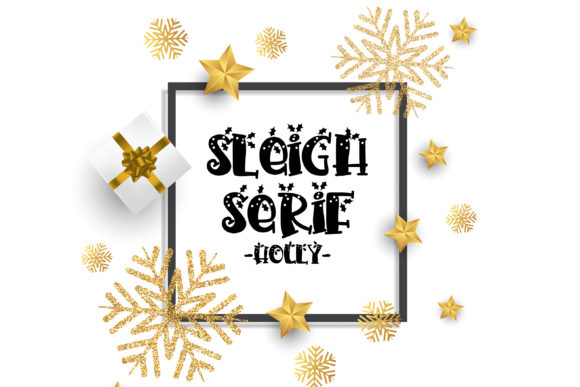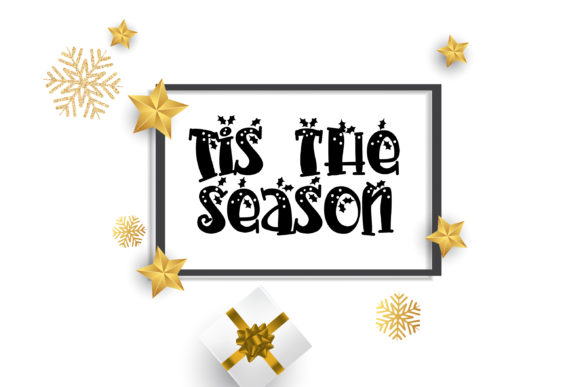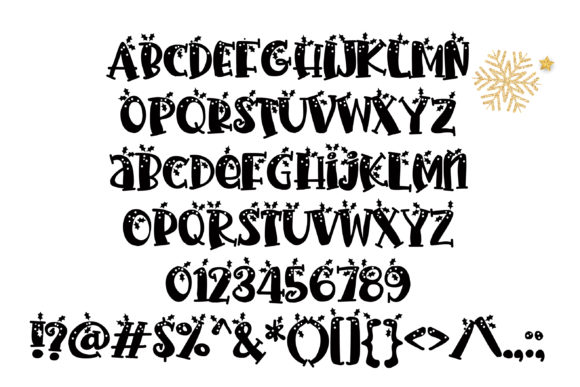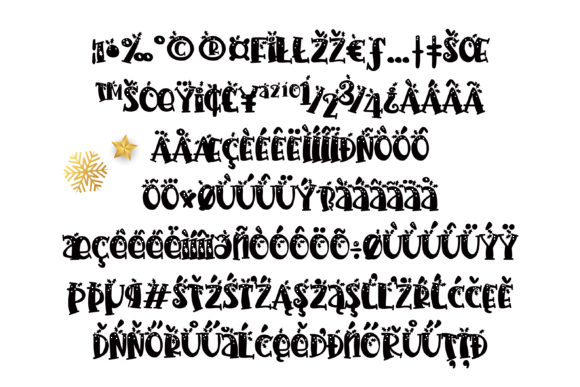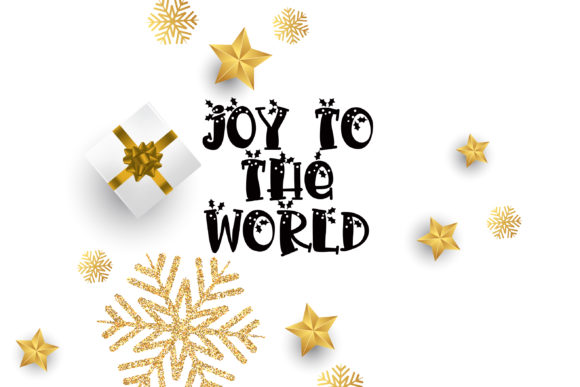
HomeScript FontsPN Sleigh Serif Holly Font Script Fonts PN Sleigh Serif Holly Font FacebookXPinterestWhatsApp PN Sleigh Serif Holly Font Poster 2 PN Sleigh Serif Holly Font Poster 3 PN Sleigh Serif Holly Font Poster 4 PN Sleigh Serif Holly Font Poster 5 About PN Sleigh Serif Holly Font This hand-crafted serif font is sporting holly throughout. DOWNLOAD ON CREATIVE FABRICAThis font is sold and delivered by Creative Fabrica. Font Canyon may earn a commission if you buy through this link. People also explored Camedyan Font Bentley Font Handmade Font Butterfly Font Zamilla Font Maletha Hidrocloroquin Font Blackletter Font Rove Font 288 0 TagsPN Sleigh Serif Holly Font Previous articleThe Spirit FontNext articlePN Christmas Town Font LEAVE A REPLY Cancel reply Comment: Please enter your comment! Name:* Please enter your name here Email:* You have entered an incorrect email address! Please enter your email address here Website: Save my name, email, and website in this browser for the next time I comment. Personal Use Free Expaing Personal Use Free Read more about this font Cute Messy Personal Use Free Read more about this font Dimensional Look71 Personal Use Free Read more about this font Rosebirth Personal Use Free Read more about this font BLOG Elegant Wedding Invitation Fonts – Handwritten & Script Fonts Elegant Wedding Invitation Fonts Your wedding day is one of the most important moments of your life, and every detail matters—including your invitation design. Our... Free Fonts Risk: Why Free Fonts Can Be Dangerous for Designers Best Fonts for T-Shirt Design – Top 2025 Picks Where to Buy American Fonts Online in 2024